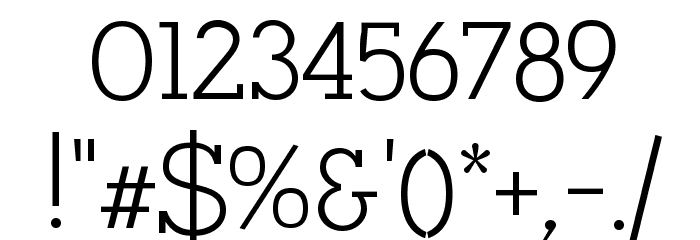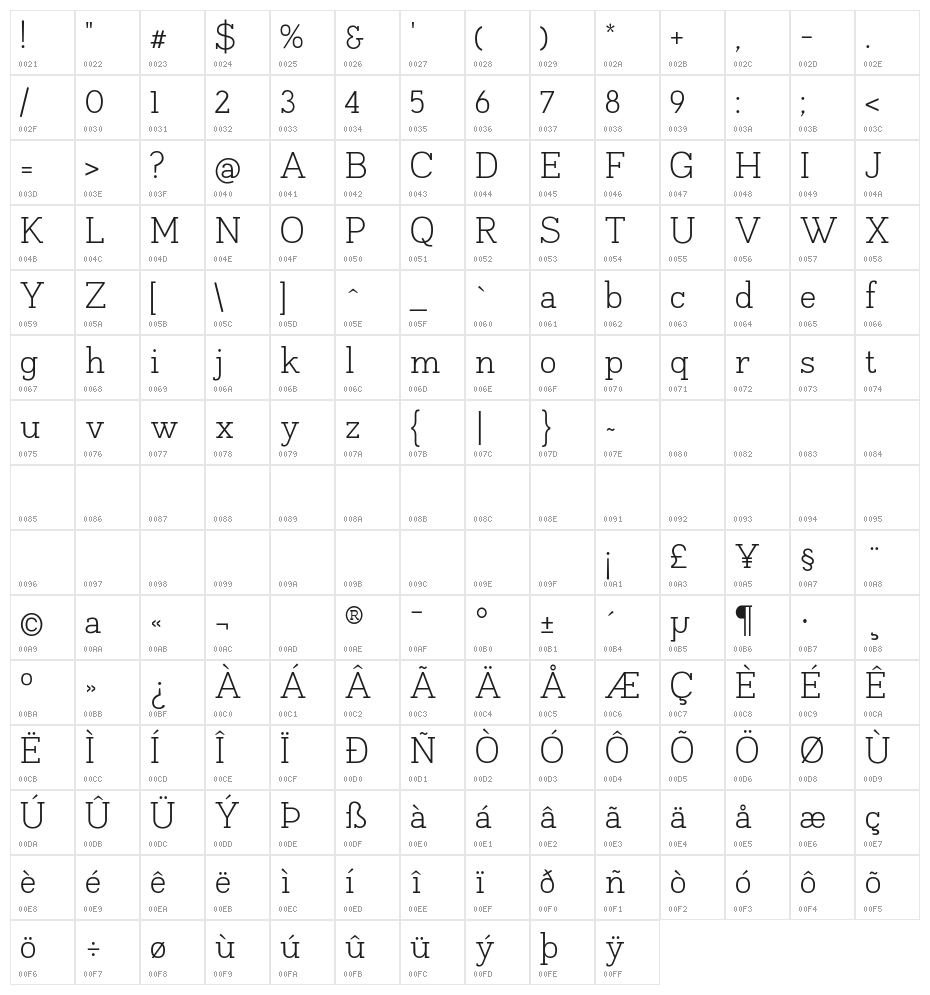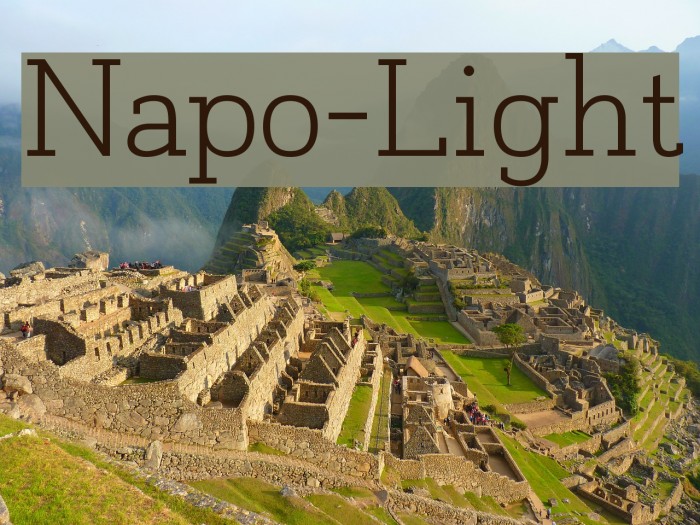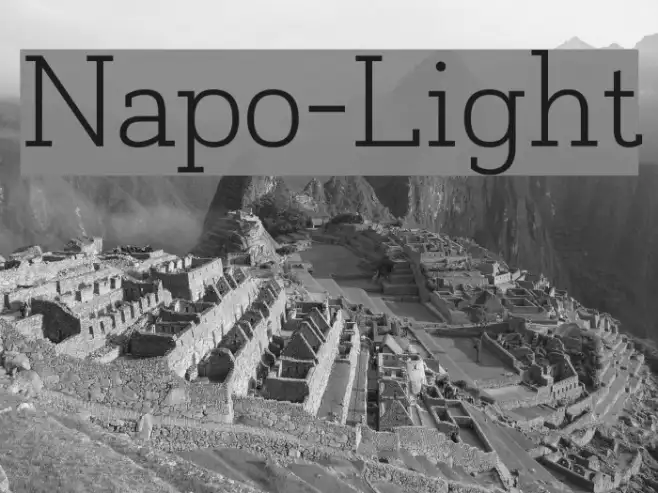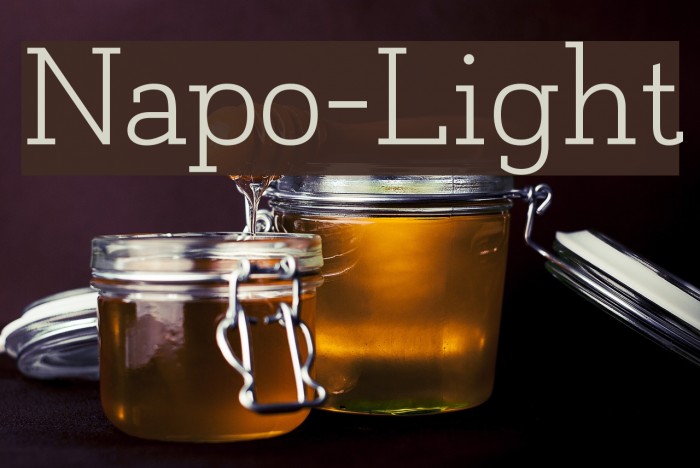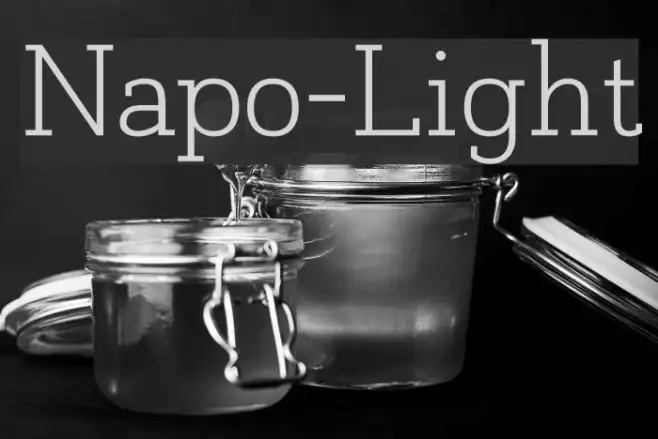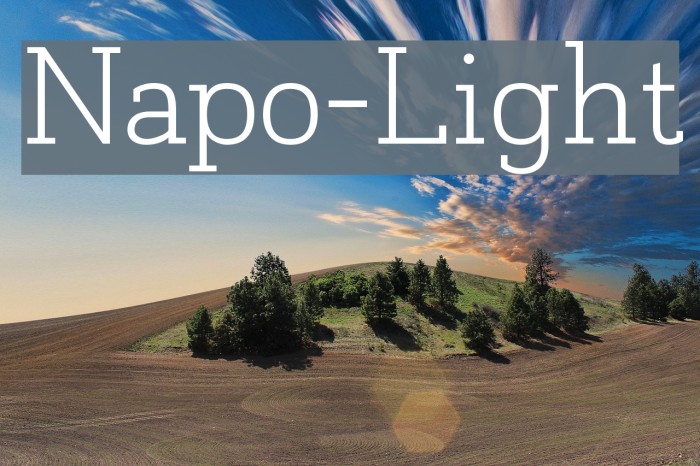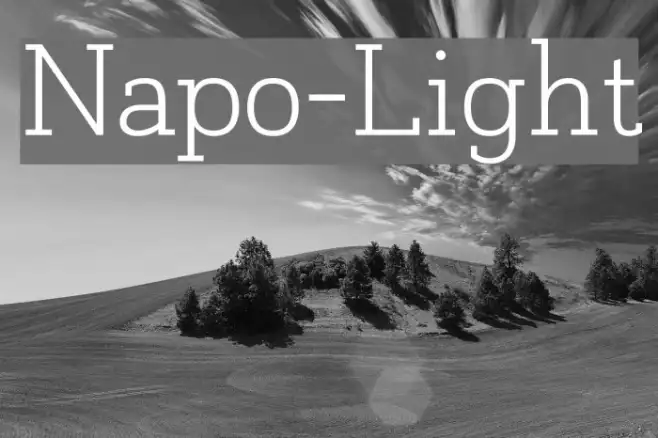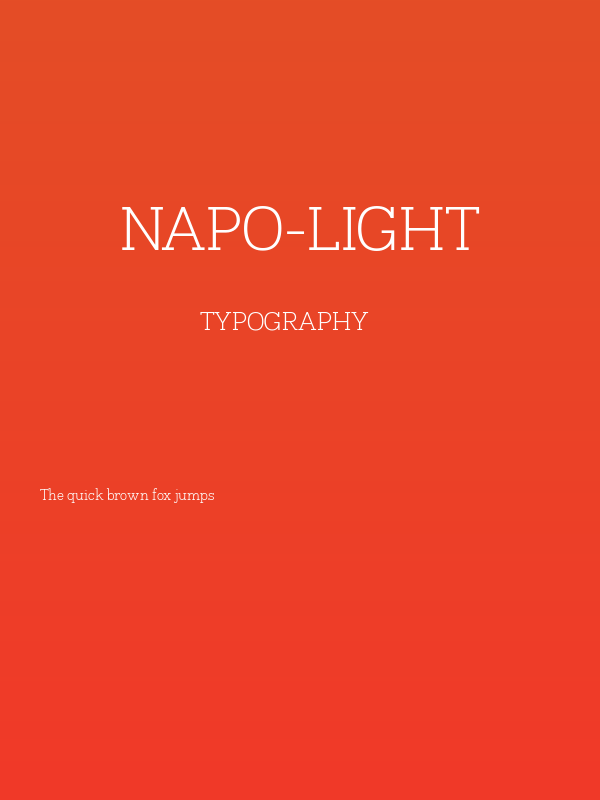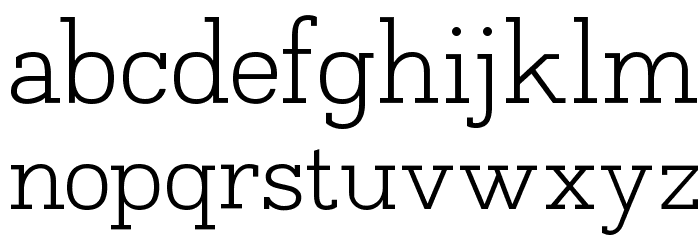
Napo-Light Font
Napo-Light Description
This font features a clean and modern serif style with a light weight, offering a refined and elegant appearance. The characters are well-proportioned with a consistent stroke width, providing a harmonious and balanced look. The uppercase letters exhibit a classic serif design, while the lowercase letters maintain a smooth and approachable feel. The numerals are clear and legible, making them suitable for various applications. Special characters are thoughtfully designed, ensuring versatility in usage. Overall, this font exudes sophistication and is ideal for projects requiring a touch of elegance.
| Proposed Projects | Ideal for editorial design, branding, invitations, and elegant web design. |